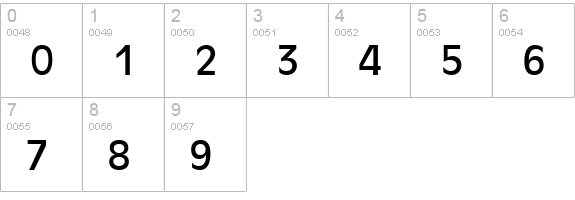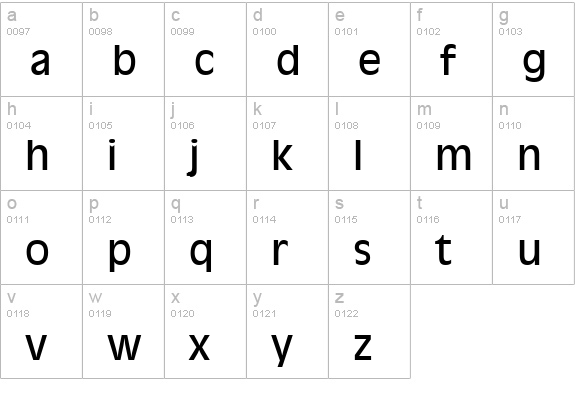
Antiqua 101 Normal is the standard, neutral variant in the Antiqua typeface family \xE2\x80\x94 well suited to general body text, paragraphs, and standard typographic work.
Antiqua 101 Normal font is a classic and elegant typeface that exudes sophistication and timeless appeal. With its clean lines and balanced proportions, this font is perfect for a wide range of design projects, from formal invitations to corporate branding. The versatility of Antiqua 101 Normal makes it a must-have addition to any designer's toolkit. The best part? Antiqua 101 Normal font is available for free download at FontsMarket.com. Whether you're a seasoned professional or a design enthusiast, this font offers a high-quality, professional look without the price tag. Download Antiqua 101 Normal today and elevate your designs with its timeless charm and versatility.